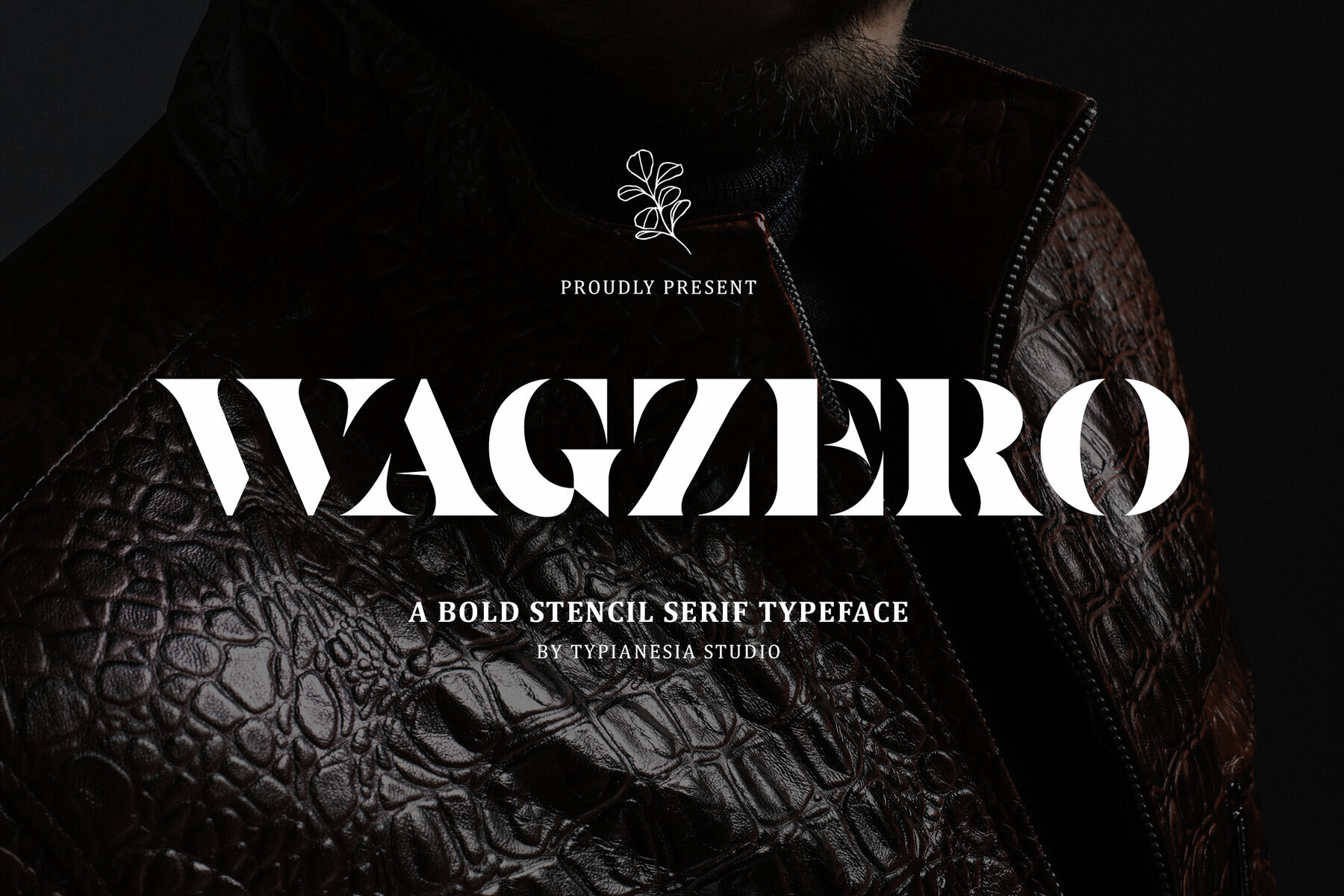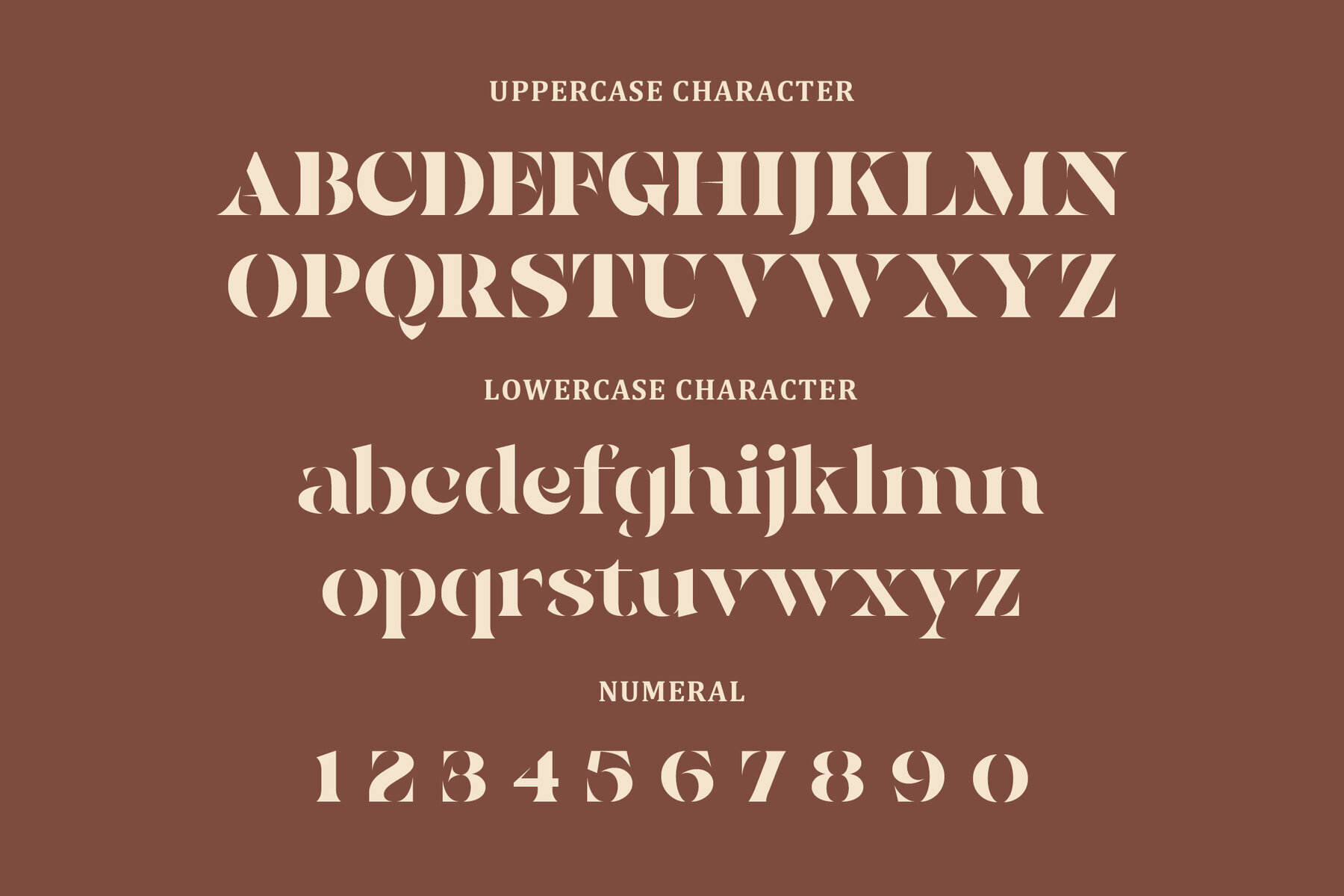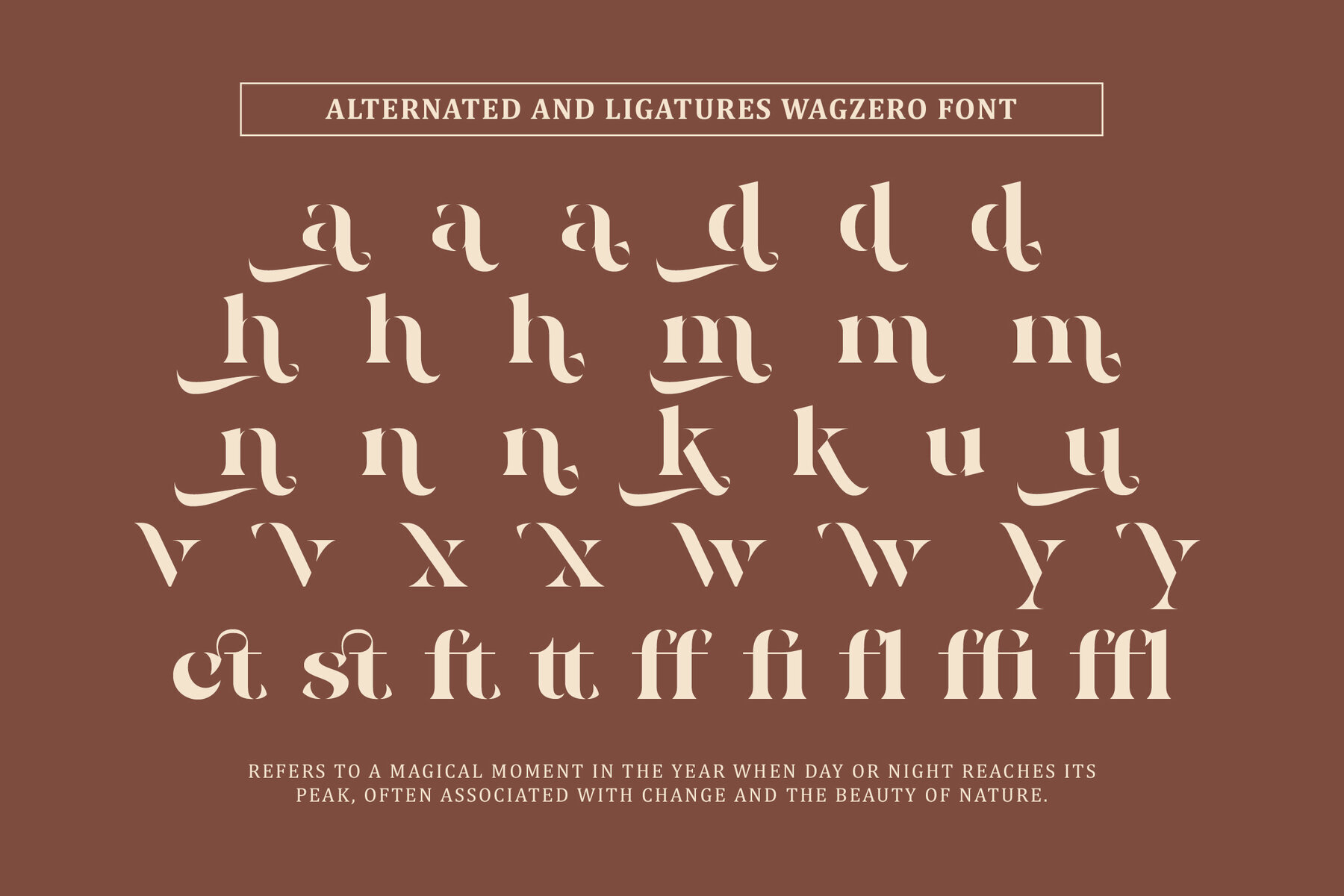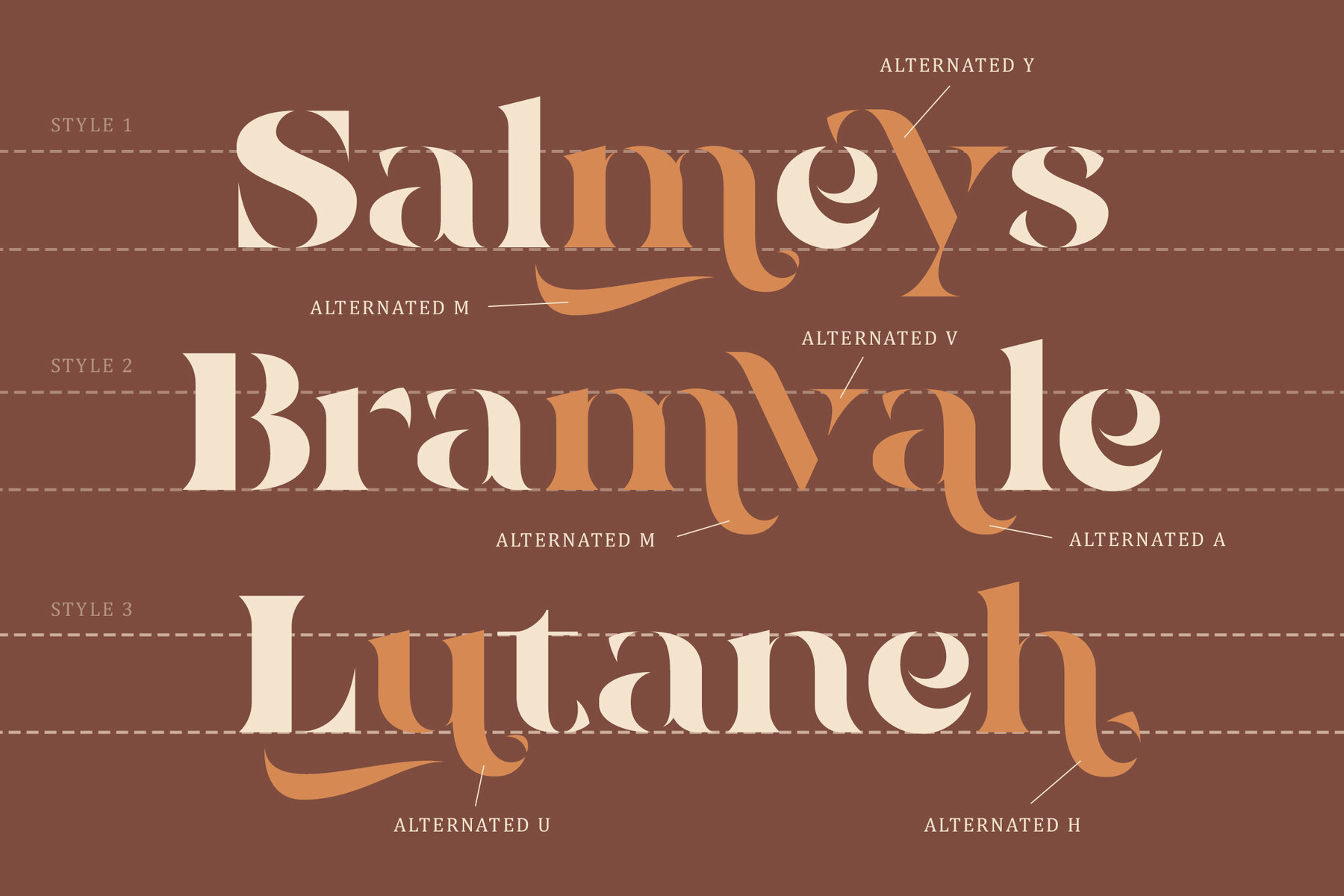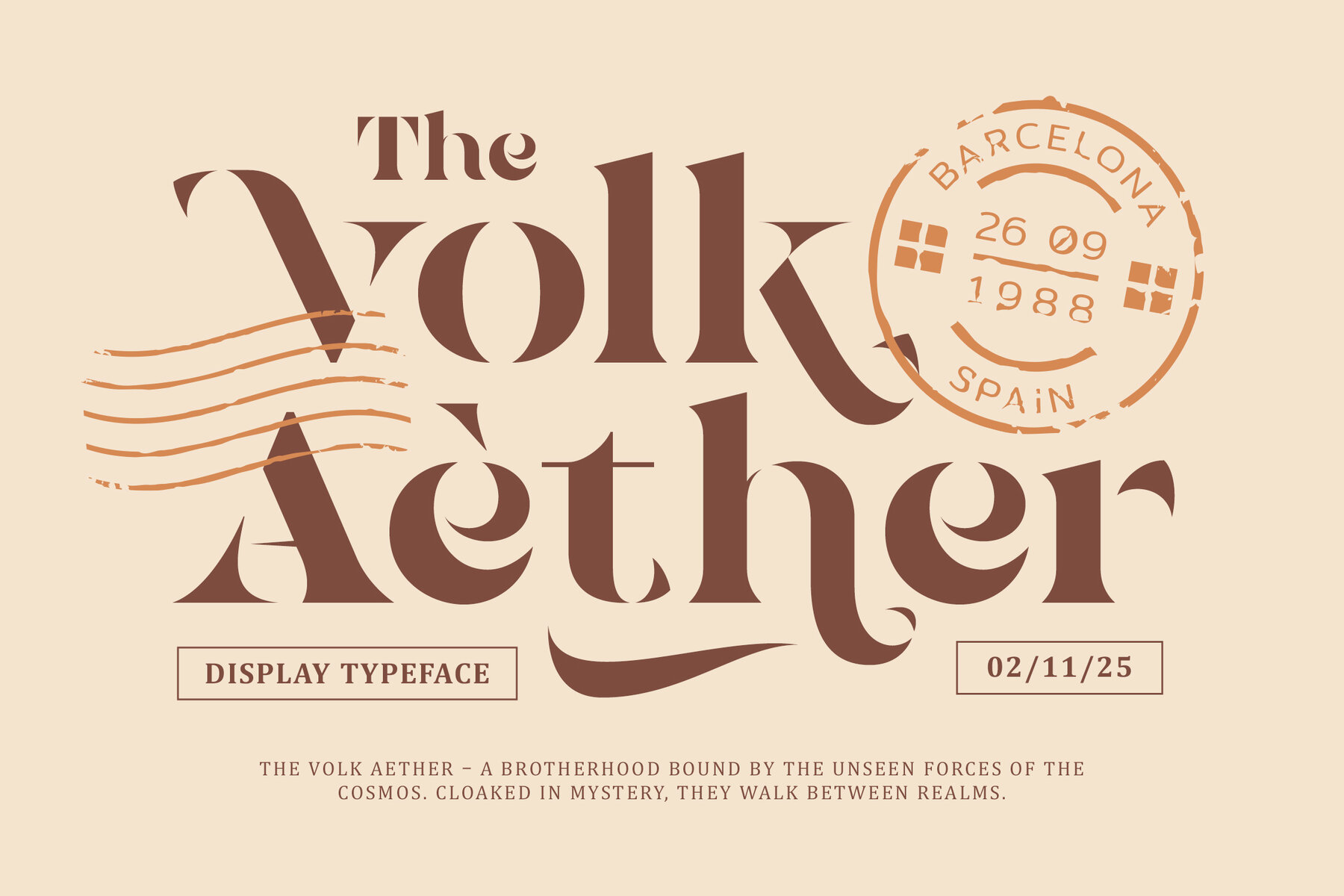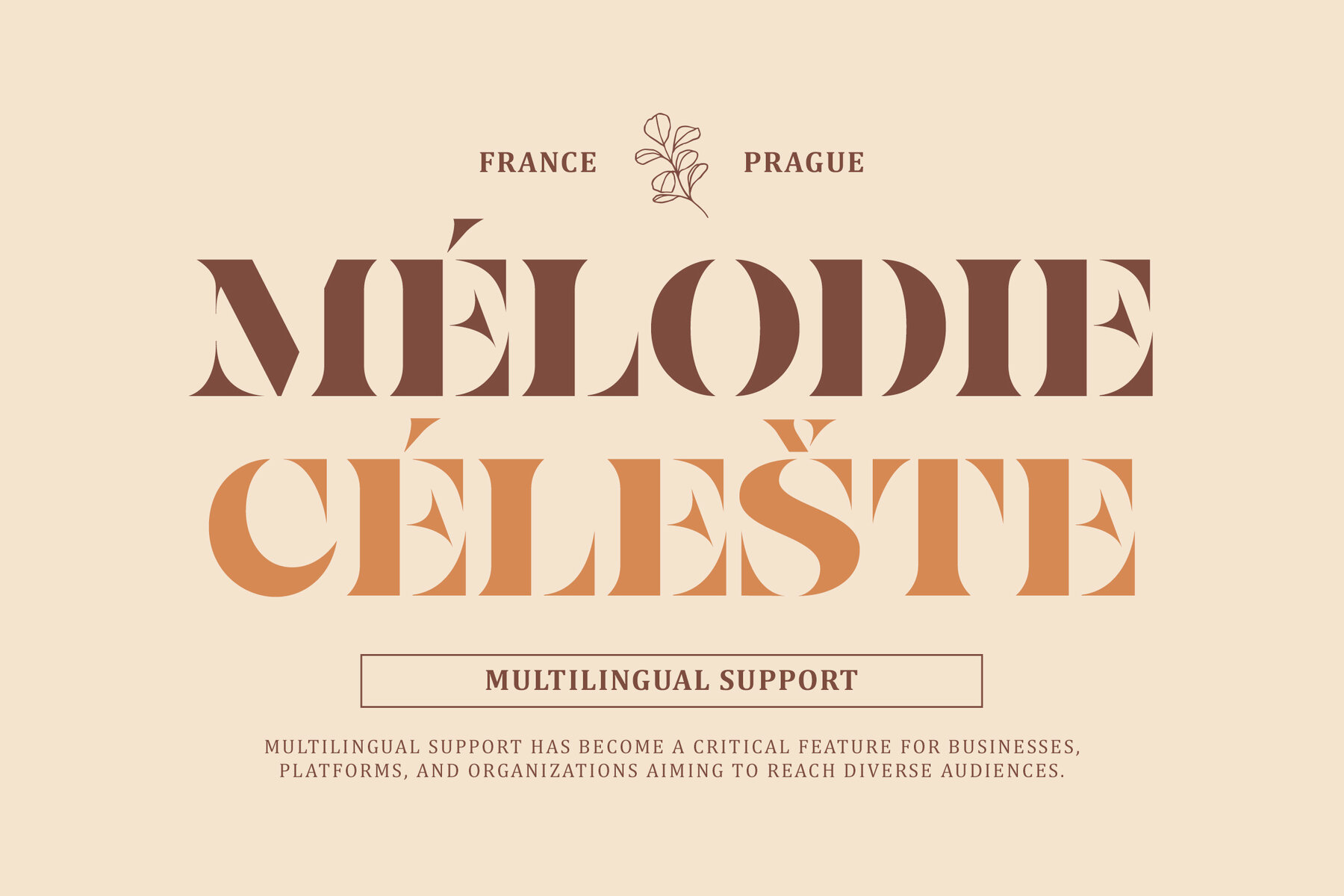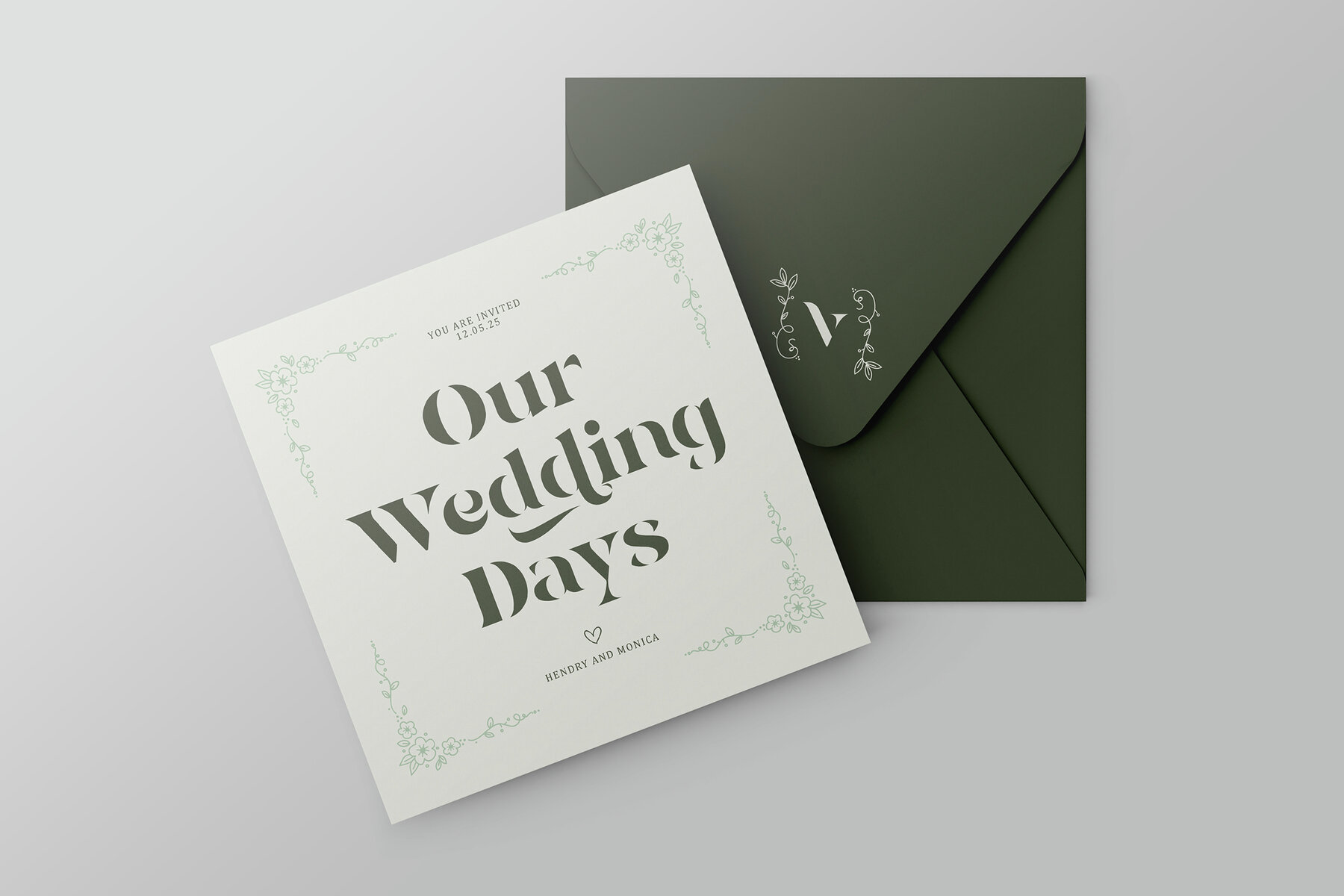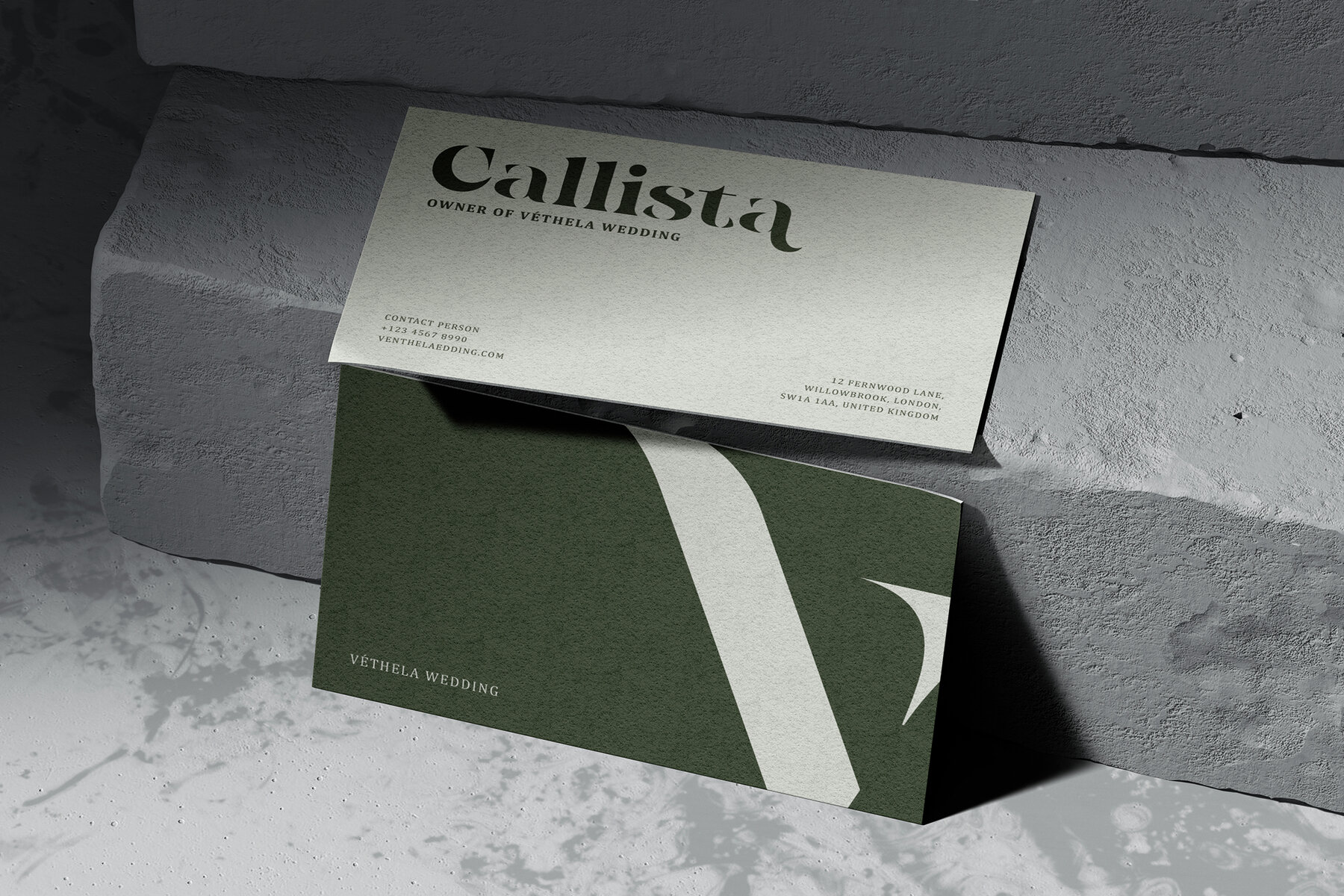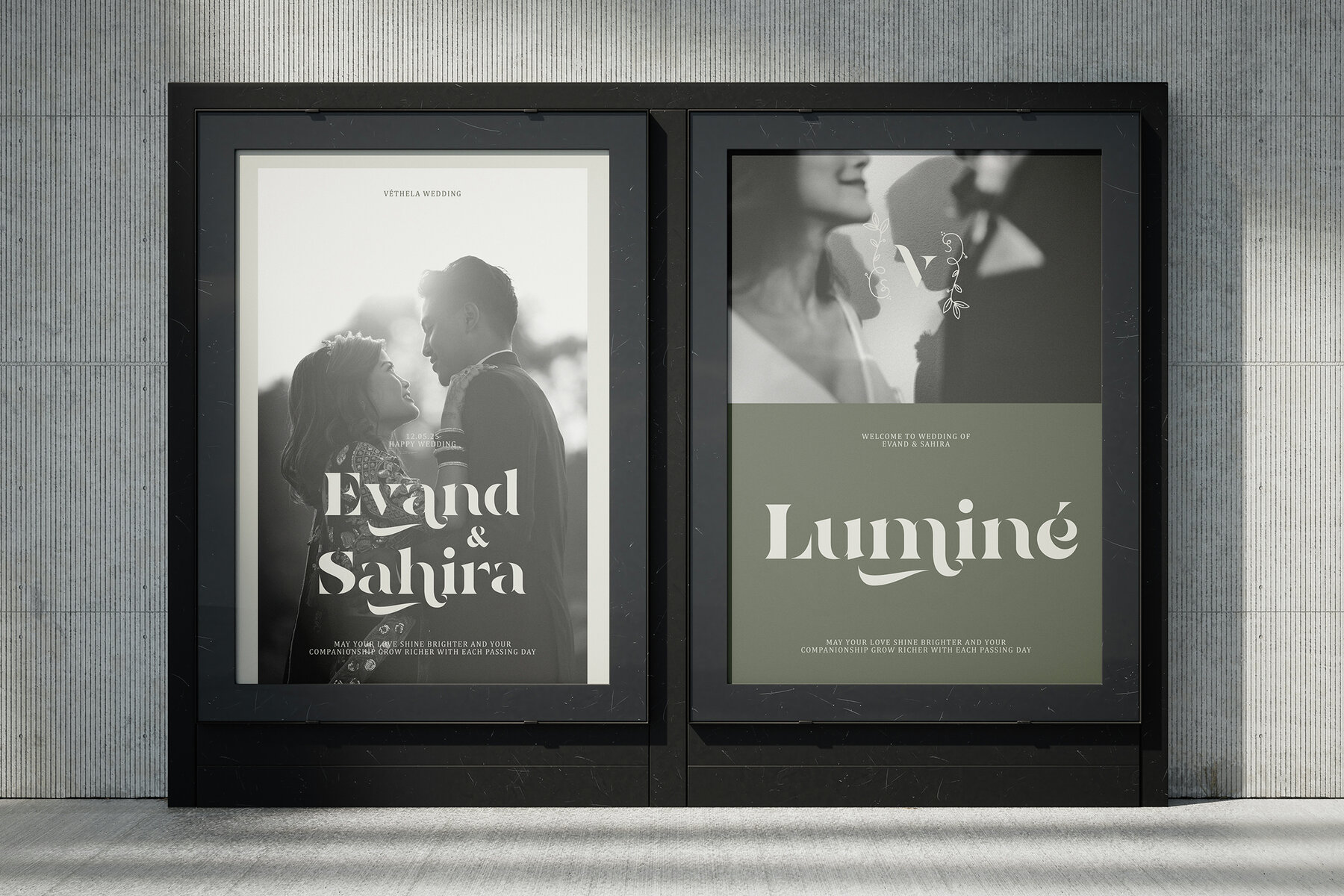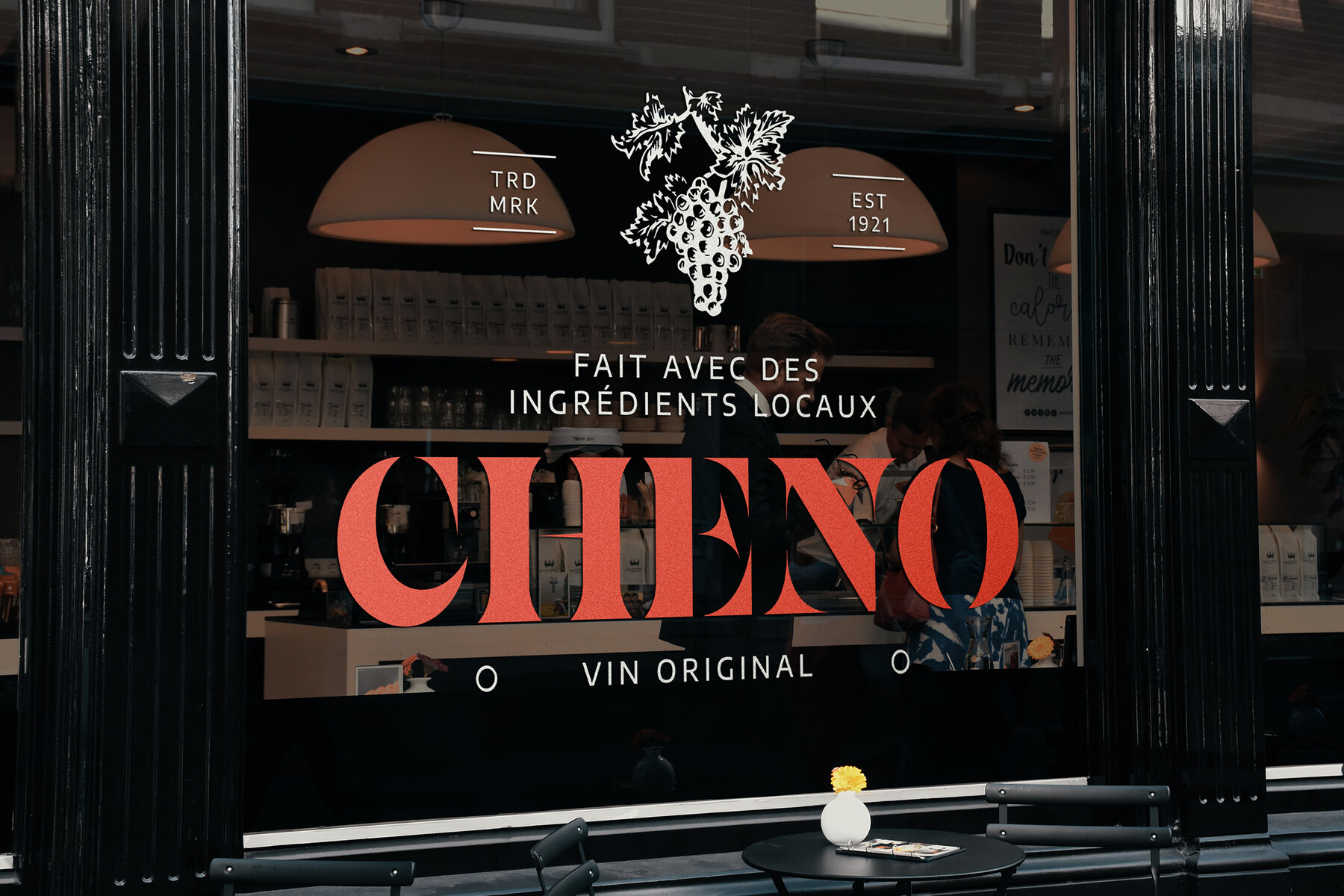
Wagzero Font
Wagzero Regular
Wagzero is a striking bold stencil serif font that effortlessly marries modern style with luxurious elegance. Its distinctive cut-through elements and robust strokes create a compelling contrast, making it an ideal choice for applications ranging from logos and fashion branding to editorial layouts and high-end product design. Whether you’re crafting magazine headlines, wedding invitations, or packaging, Wagzero adds an undeniable touch of class and sophistication. Designed with professional designers in mind, Wagzero is your reliable typeface for luxury branding, modern editorial projects, and noteworthy visual communication. Its timeless charm and bold design make it a must-have in every premium design arsenal. Discover Wagzero today and infuse your typography with luxury and strength.Wagzero: Bold Stencil Serif for Luxury Design